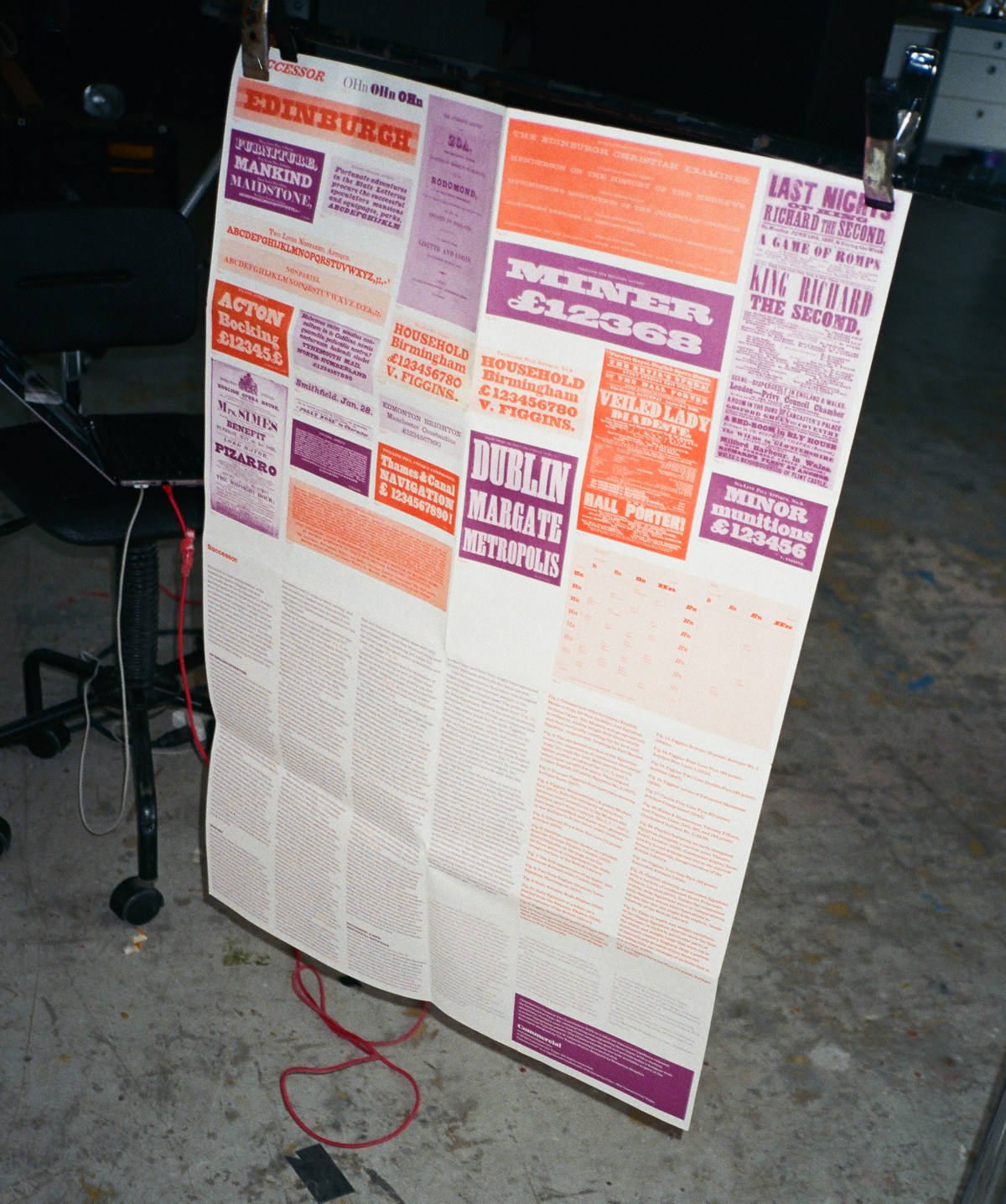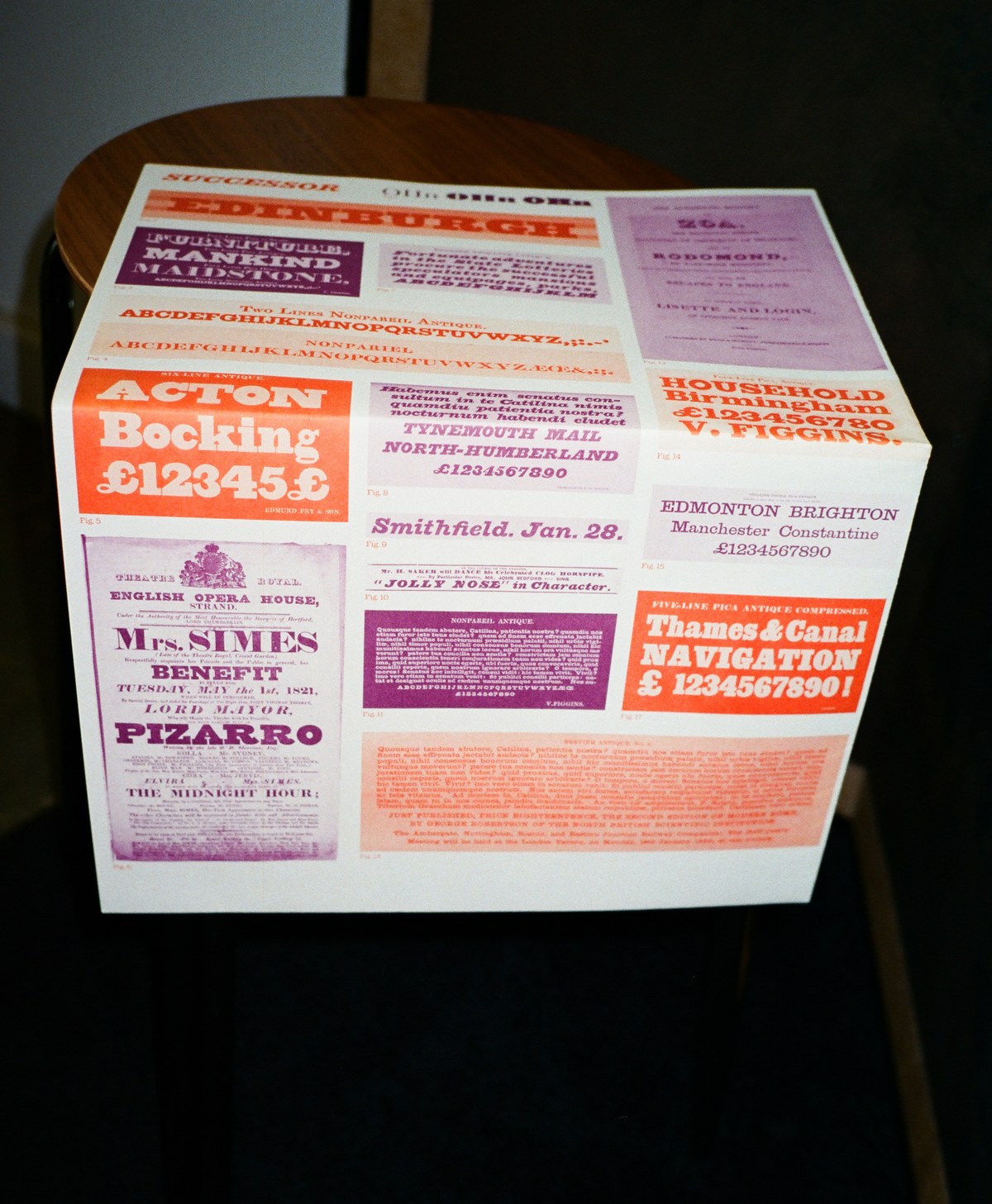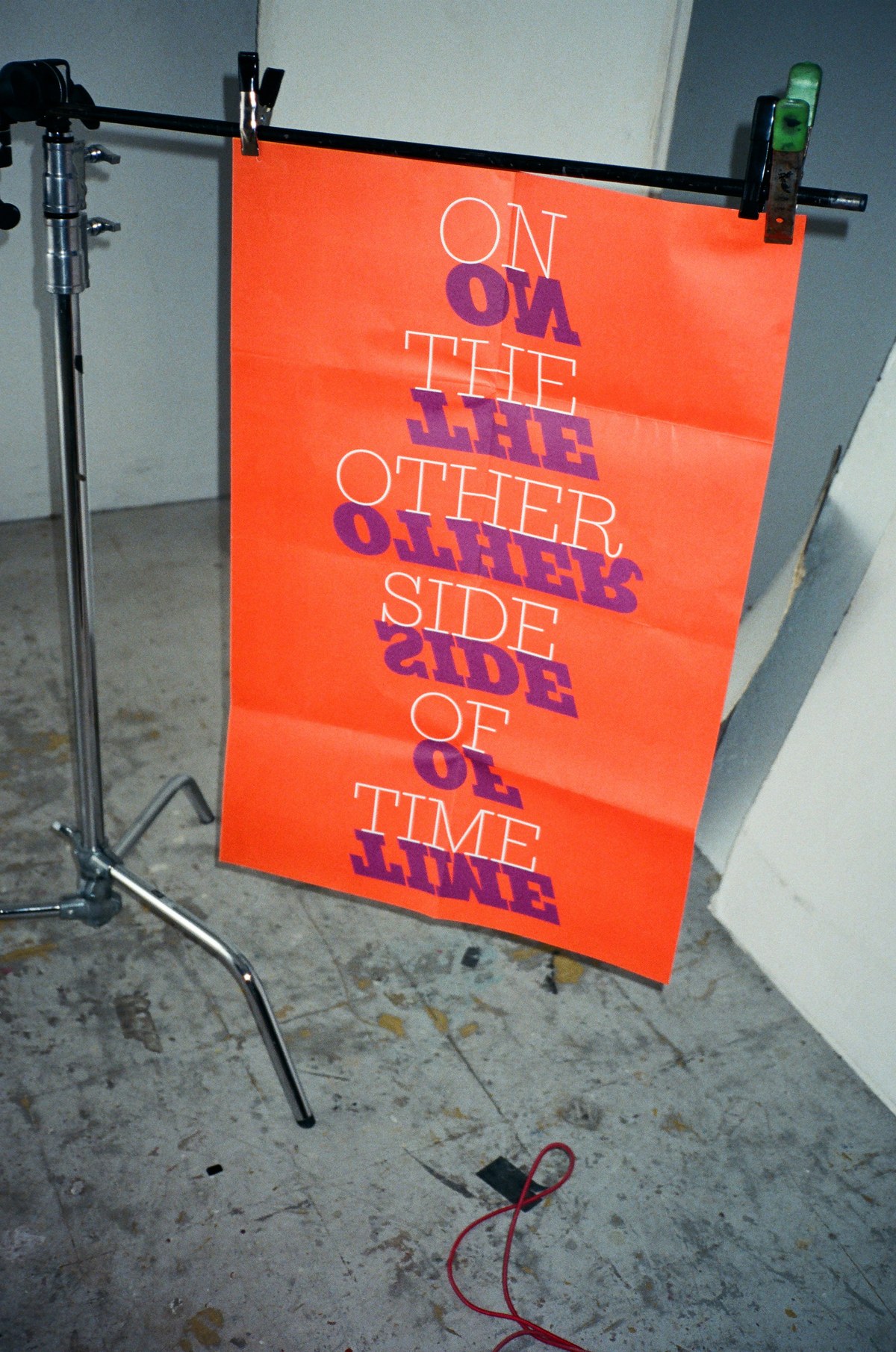
Benjamin Shaykin designed a double-sided poster for Tim Ripper’s lecture entitled The Past Inside the Future: Commercial Classics at Five at the San Francisco Public Library, presented by Letterform Archive and Type West on 9 July 2024. Lushly printed in two spot colors, the front features a quote from Sun Ra, while the reverse reproduces Tim’s essay on the development of Successor from this site, profusely illustrated with the historical materials that informed the design and incidentally demonstrating Successor’s excellence as a text face.